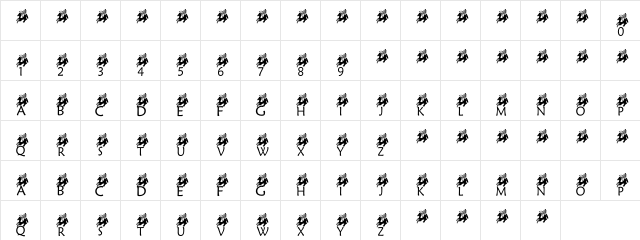
pf_pegasus1 Regular
Design Context for pf_pegasus1 Typeface
pf_pegasus1 is a composed and adaptable typeface that performs quietly and consistently across a wide range of design contexts.